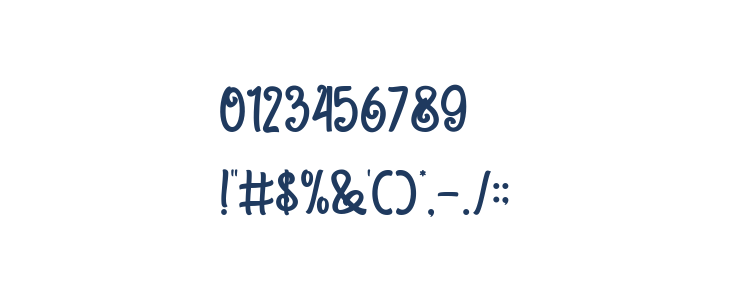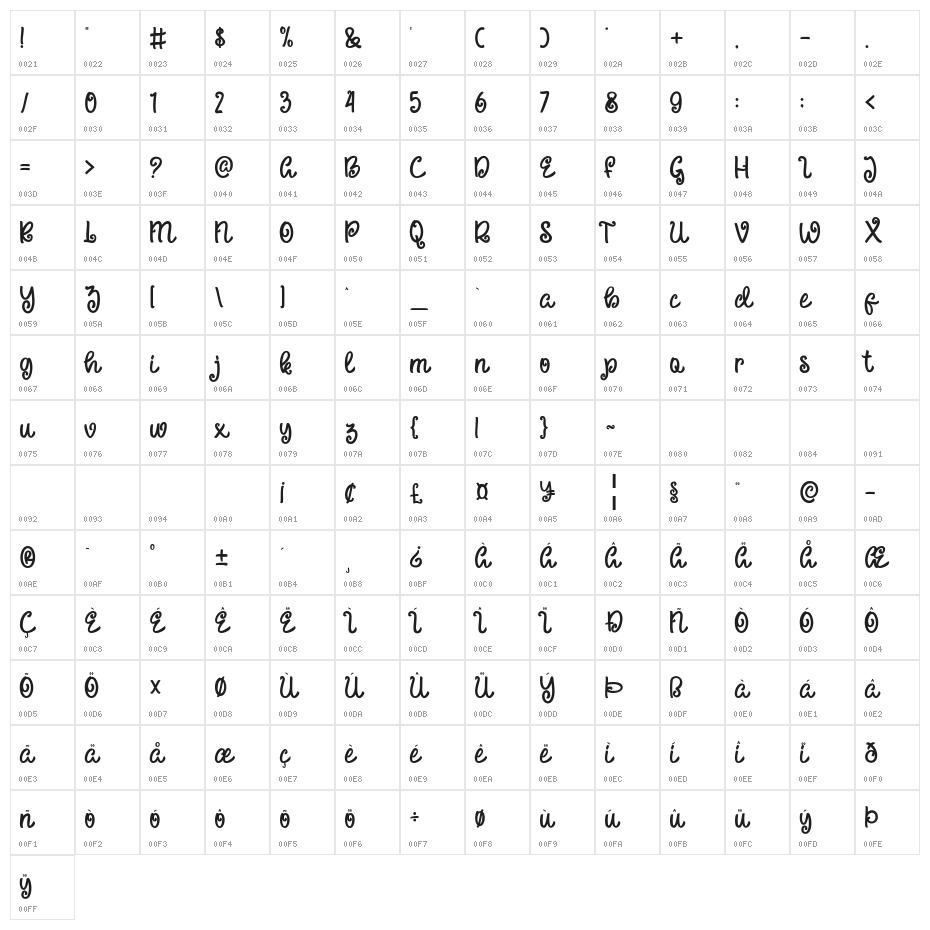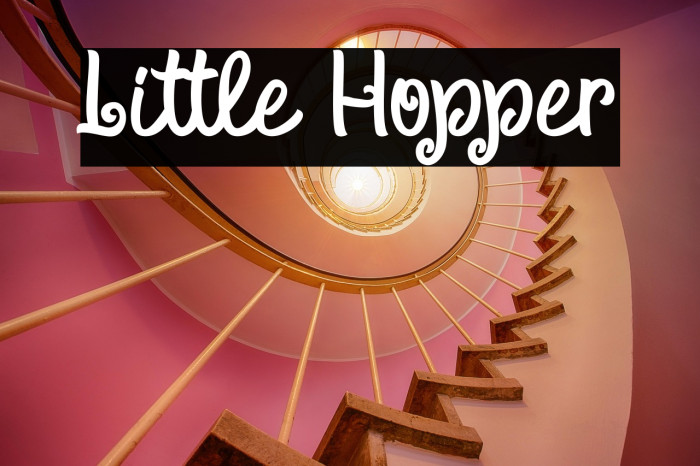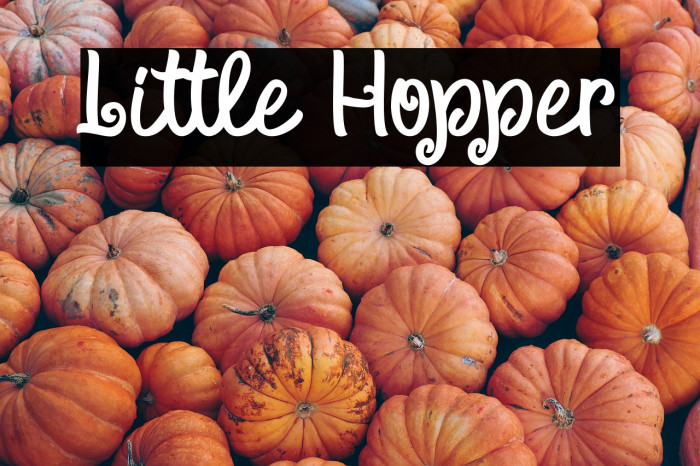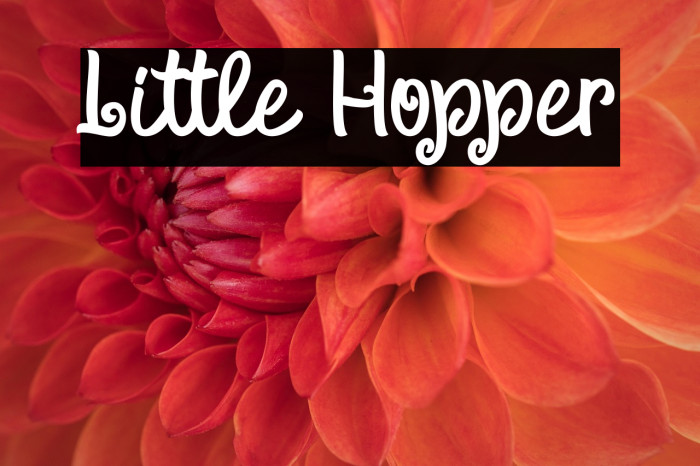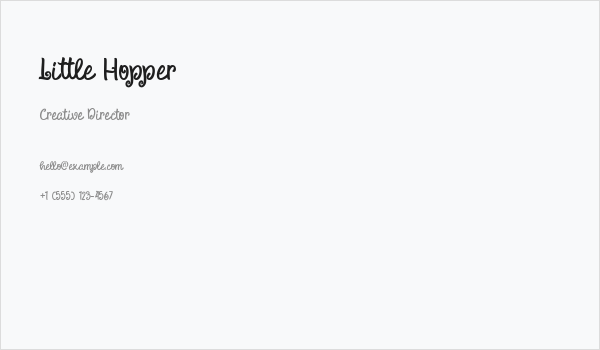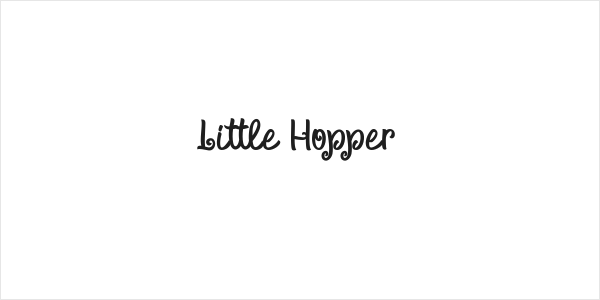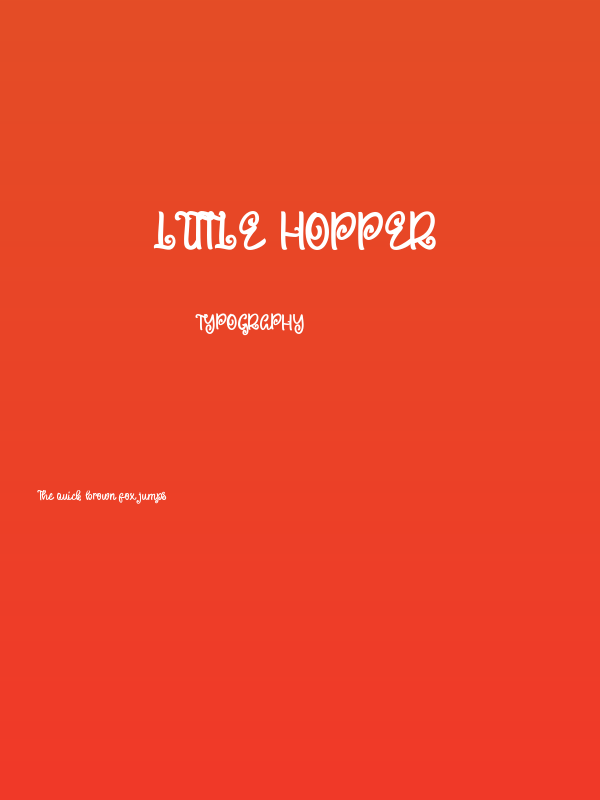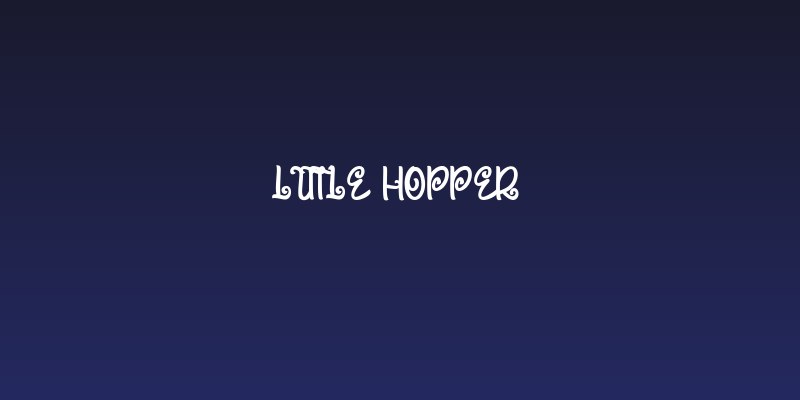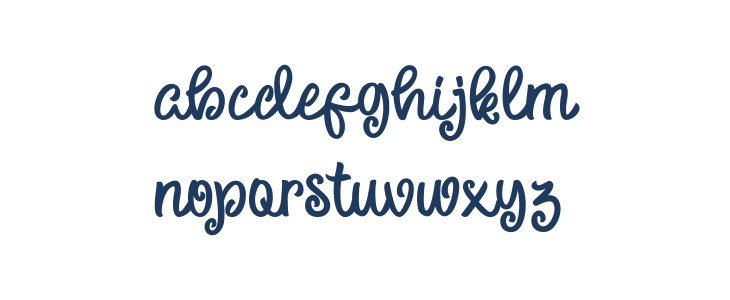
Little Hopper Font
Little Hopper Description
This font features a playful and whimsical design, characterized by its curly and looping strokes. Each letter has a unique flair, with exaggerated curves that give it a lively and dynamic appearance. The font maintains a consistent weight throughout, providing a bold and confident look. Its rounded edges and smooth lines contribute to a friendly and approachable feel, making it suitable for creative and informal projects. The numerals and special characters are designed to match the playful style of the alphabet, ensuring a cohesive look across all text elements.
| Overall Style | Whimsical |
| Proposed Projects | Ideal for children's books, playful branding, greeting cards, and creative invitations. |